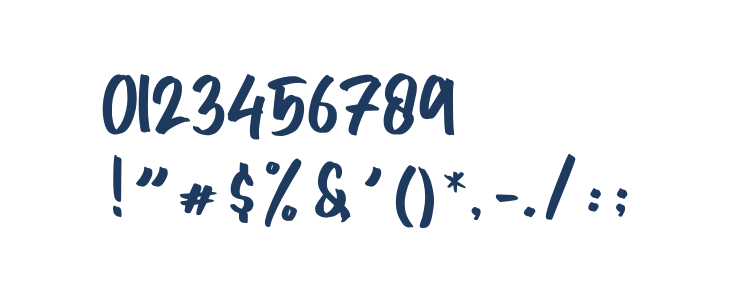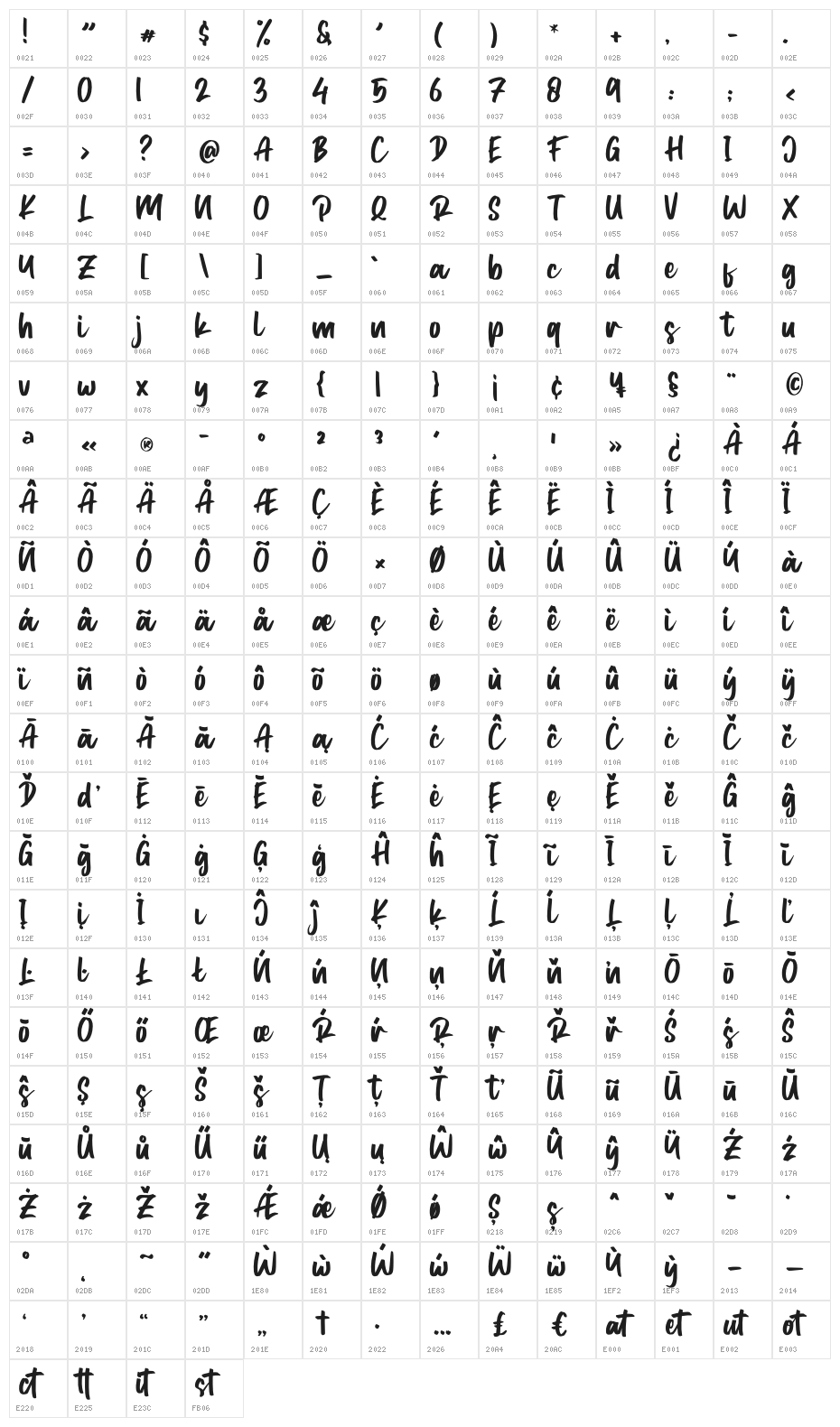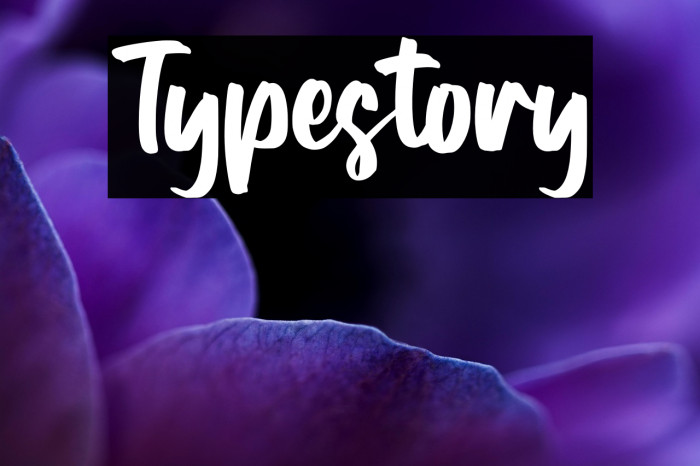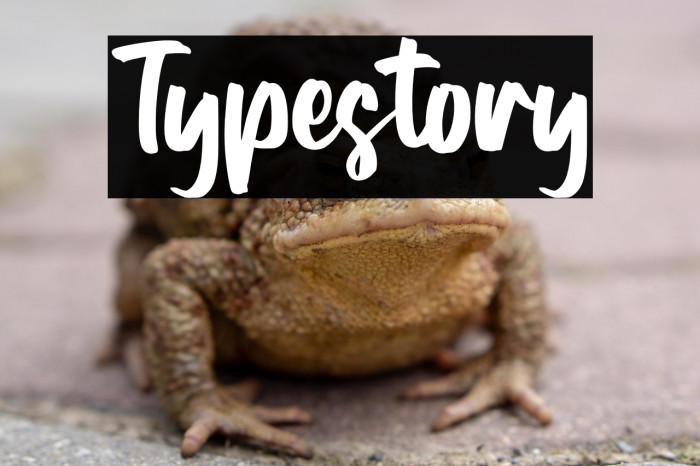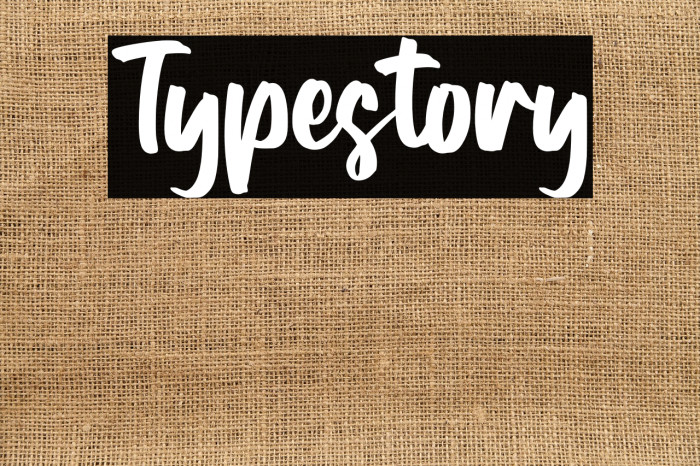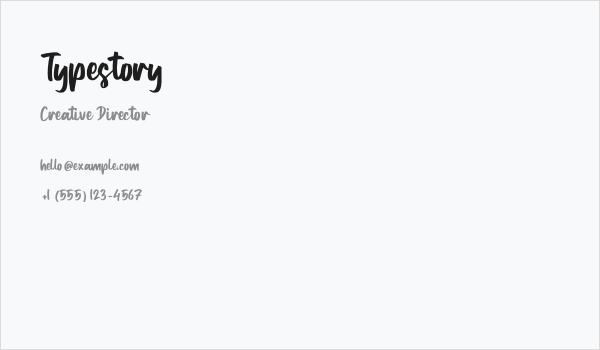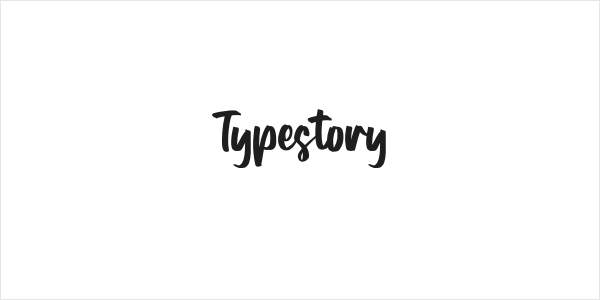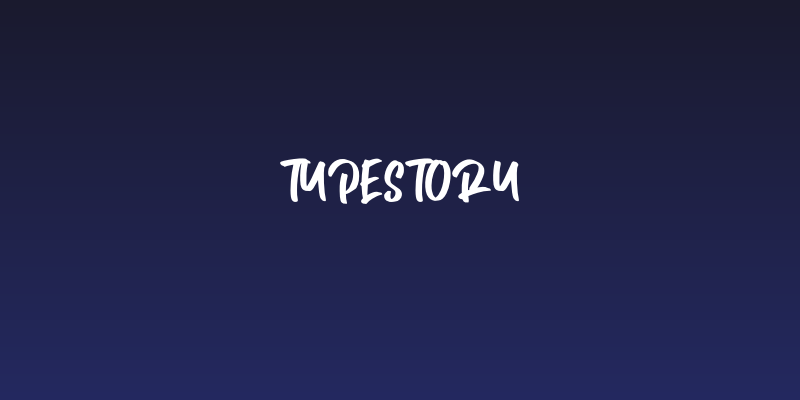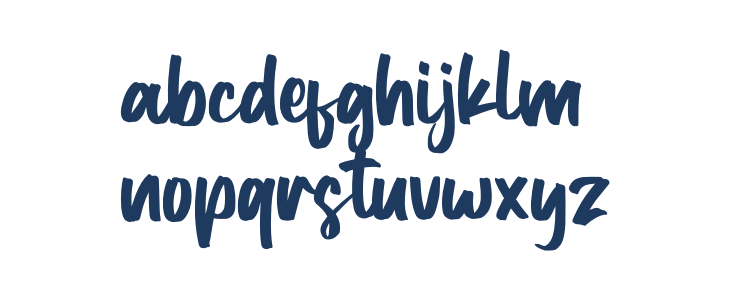
Typestory Font
Typestory Description
This font features a bold and expressive handwritten style, characterized by its fluid and dynamic strokes. The letters are crafted with a sense of motion and energy, giving it a lively and informal appearance. The uppercase and lowercase letters maintain a consistent style, with rounded edges and varying stroke widths that add a touch of playfulness. The numerals and special characters are equally bold, ensuring readability and coherence across different uses. This font is perfect for projects that require a personal and approachable touch, such as invitations, posters, and branding materials.
| Proposed Projects | Ideal for invitations, posters, branding, and any project needing a personal touch. |